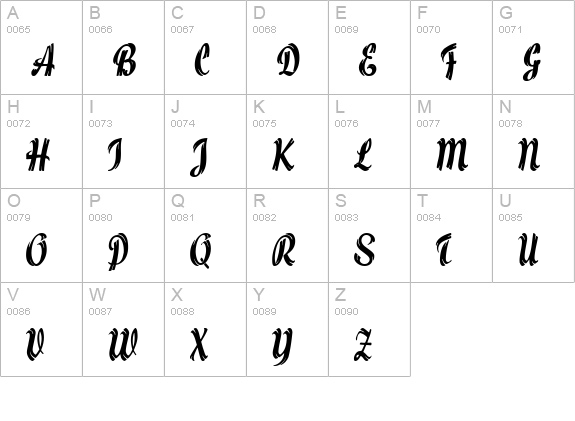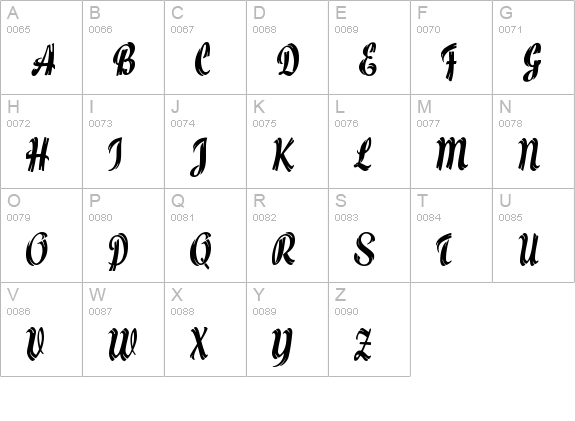
Maize MF Font Details
Maize MF font is a modern and stylish typeface that exudes elegance and sophistication. With its clean lines and sleek design, this font is perfect for a wide range of design projects, from branding to editorial design. The Maize MF font features a unique combination of sharp edges and soft curves, giving it a contemporary and versatile look that will elevate any project. What sets Maize MF font apart is that it is available for free download at FontsMarket.com. This means that you can easily access this high-quality font without any cost, making it a valuable addition to your font library. Whether you're working on a personal project or a professional design, Maize MF font is sure to make a statement and leave a lasting impression.